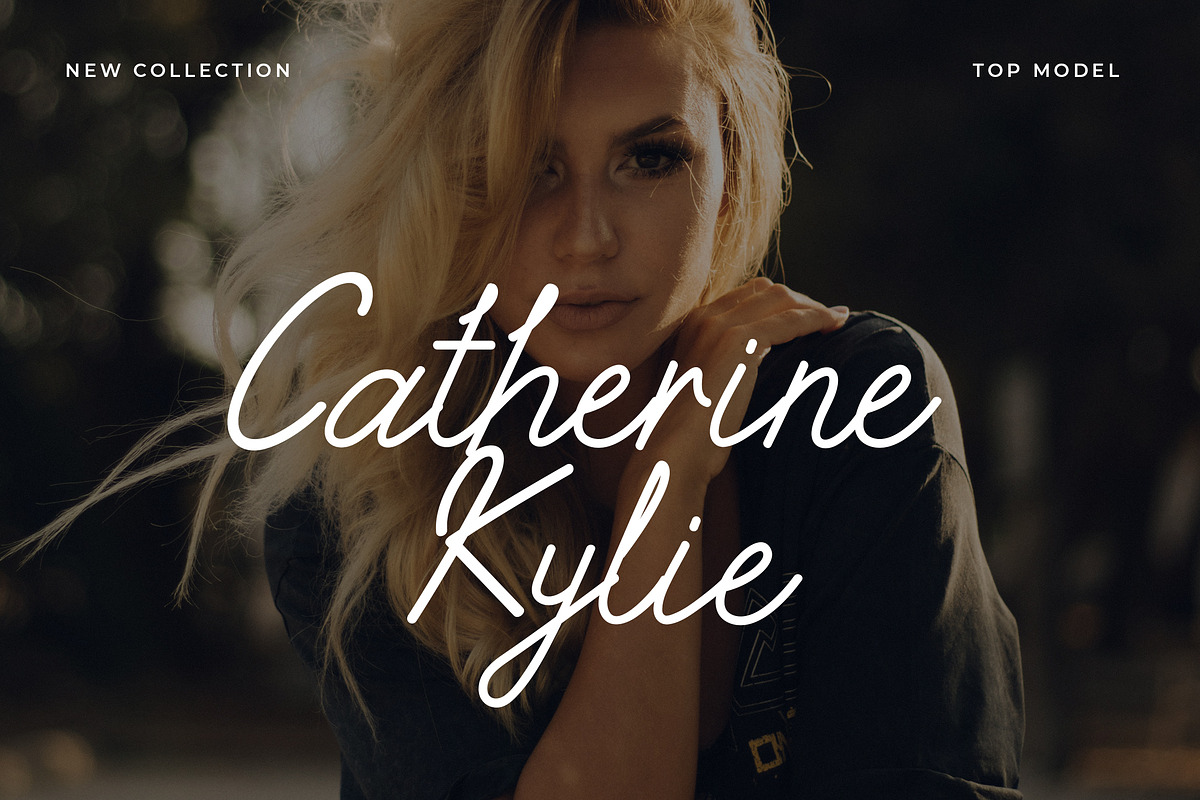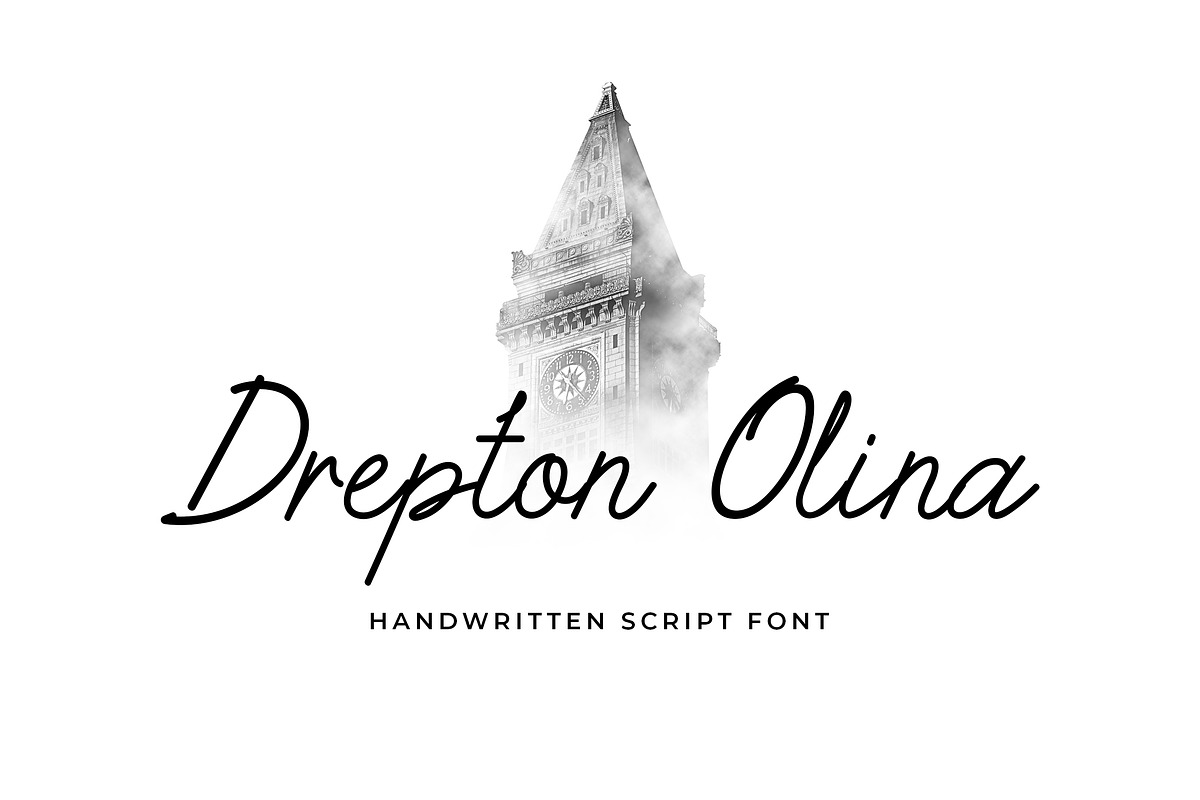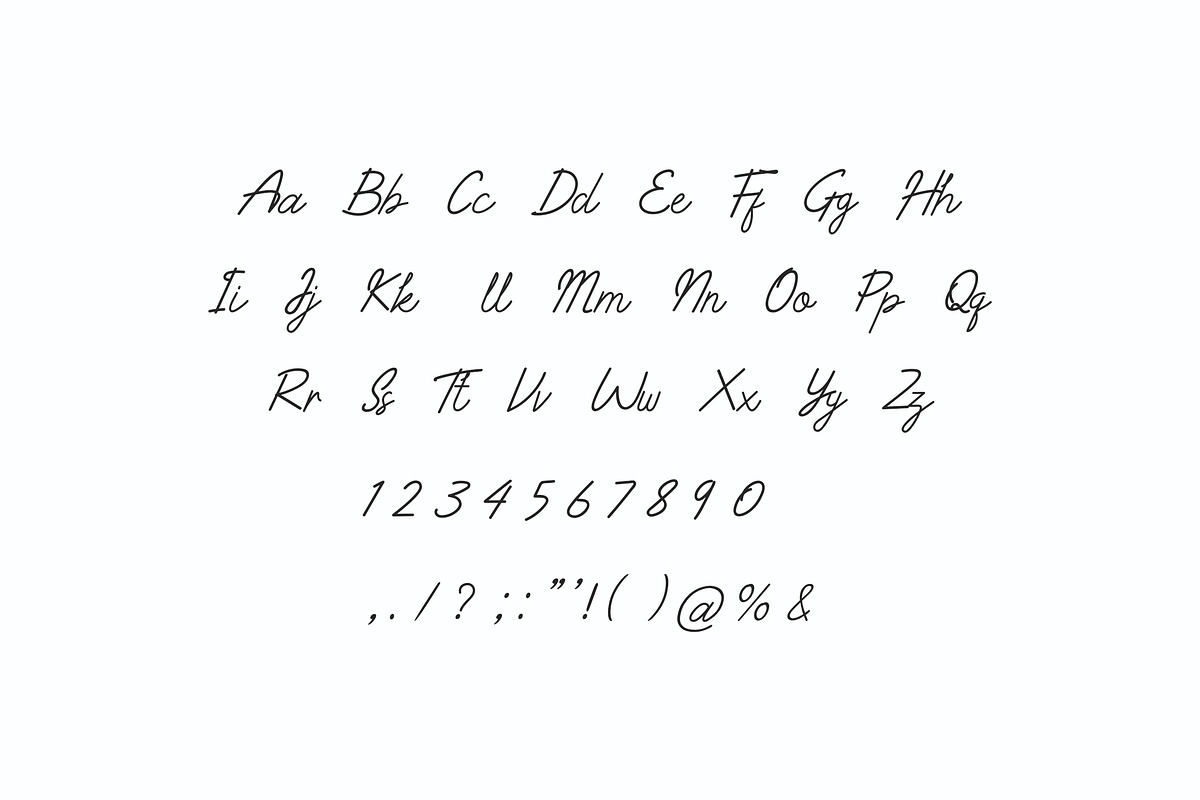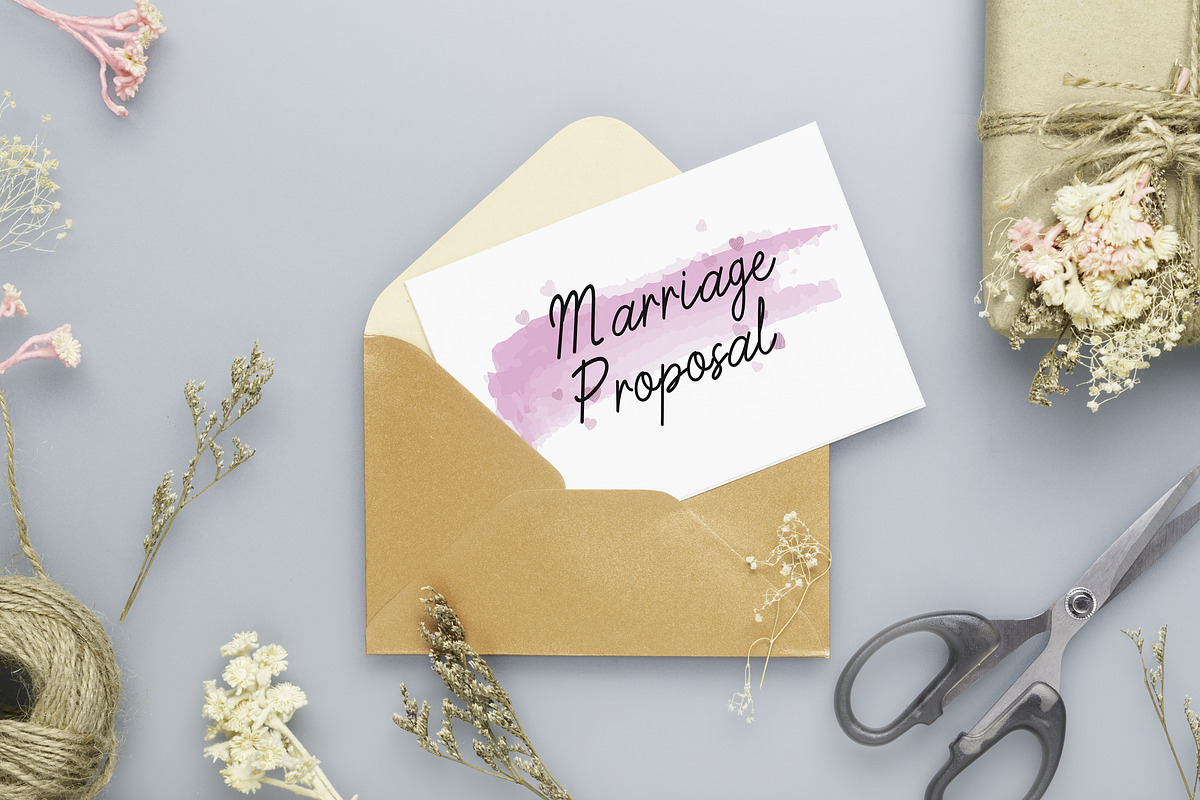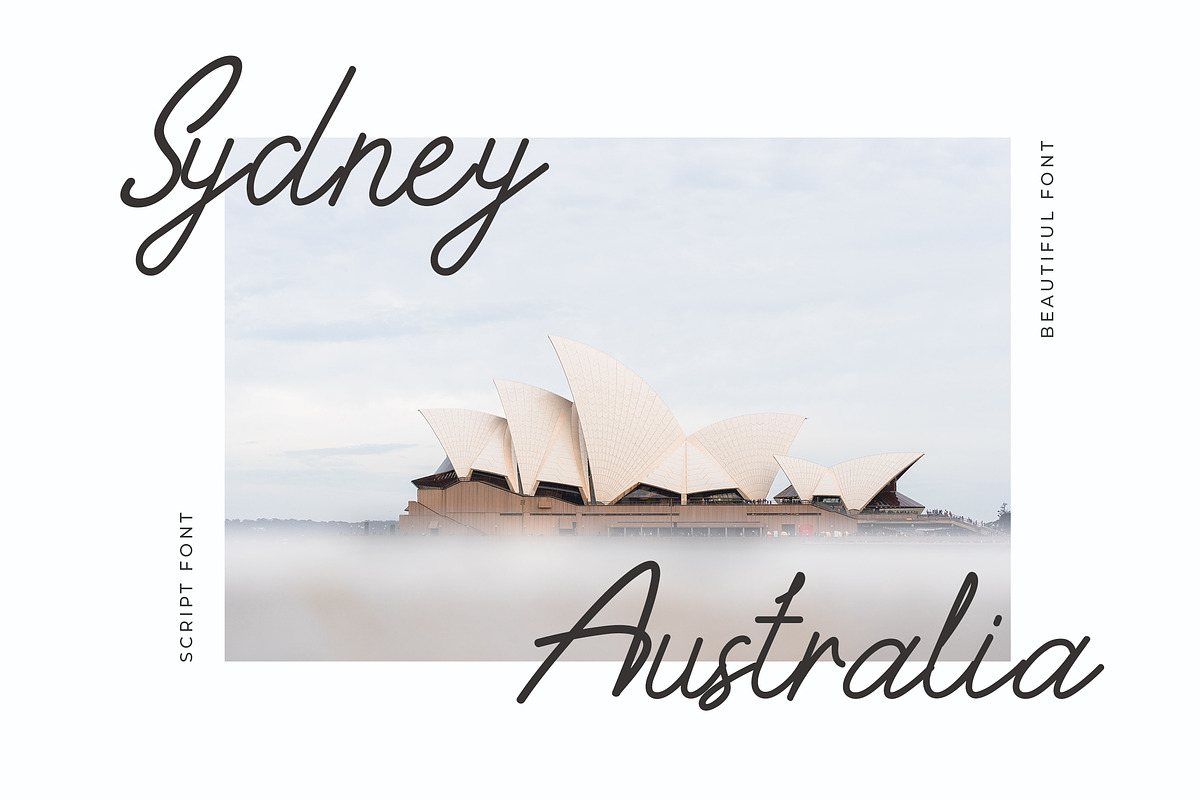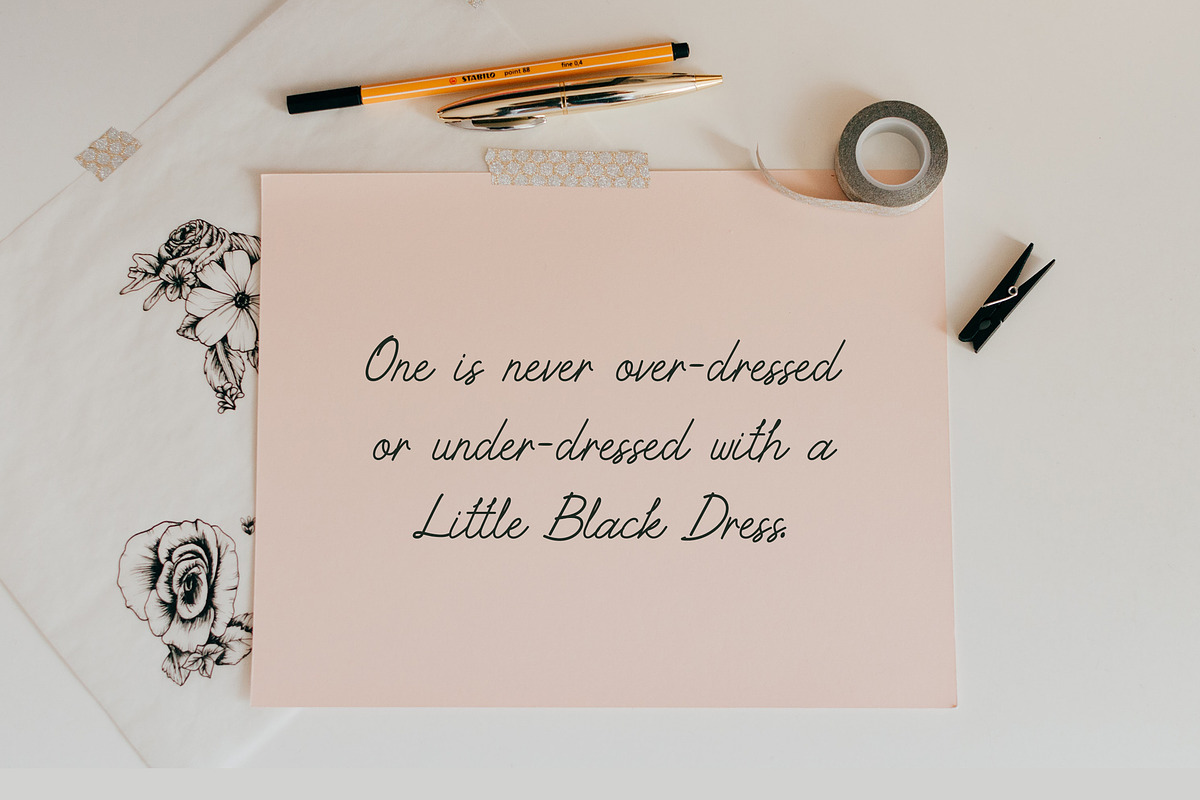
Drepton Olina Handwritten Font
Introducing of our new product the name is Drepton Olina Handwritten Font. Modern signature font that feels beautiful classy, elegant, and modern .This font is perfect suited for a wide variety of projects, as to signature, stationery, logo, wedding, typography quotes, magazine or book cover, website header, clothing, branding, packaging design and more. Also for fashion related branding or editorial design and displays both masculine and feminine qualities.